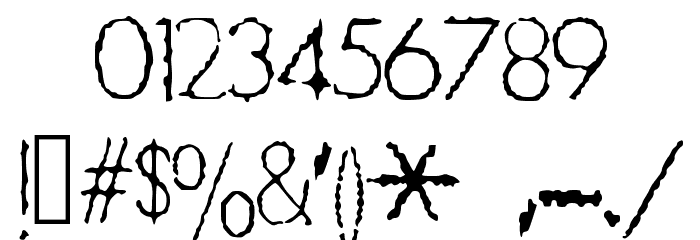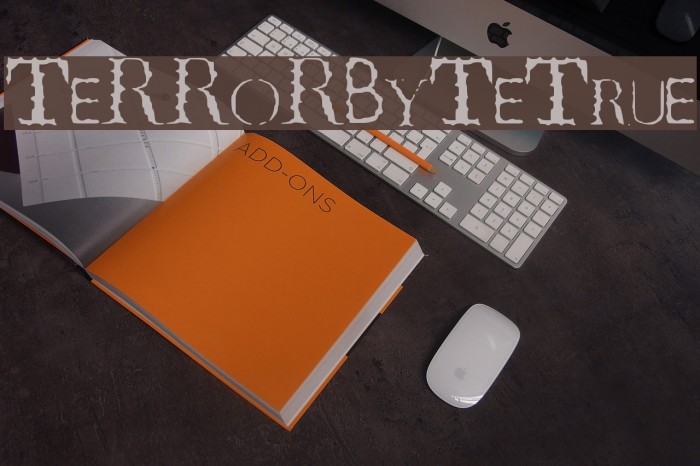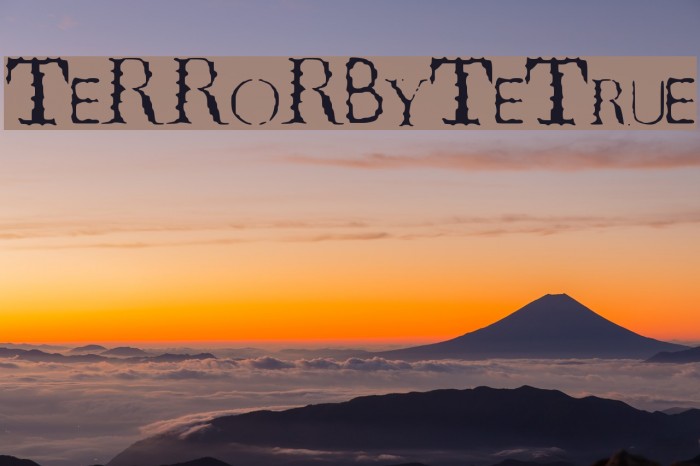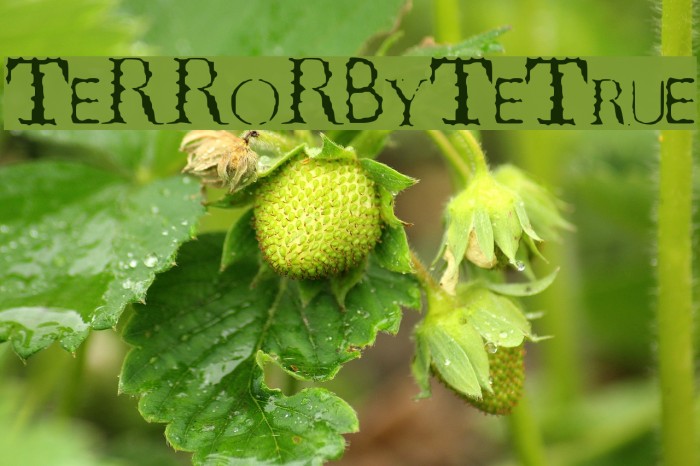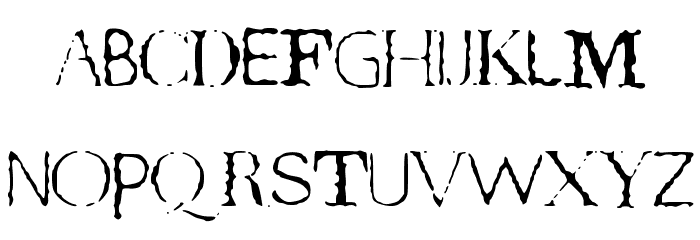
TeRRoR_ByTe_True Font
TeRRoR_ByTe_True Description
This font features a distressed and eroded style, giving it a rugged and worn appearance. The characters are bold and have a rough texture, with irregular edges that create a sense of decay or corrosion. The uppercase and lowercase letters maintain a consistent design, with the uppercase being slightly more pronounced. Numbers and special characters follow the same distressed aesthetic, making the font suitable for themes that require a gritty or horror-like feel. The overall design is unique and eye-catching, perfect for projects that aim to convey a sense of unease or vintage horror.
| Proposed Projects | Ideal for horror-themed posters, video game titles, Halloween invitations, or any project requiring a gritty, vintage look. |